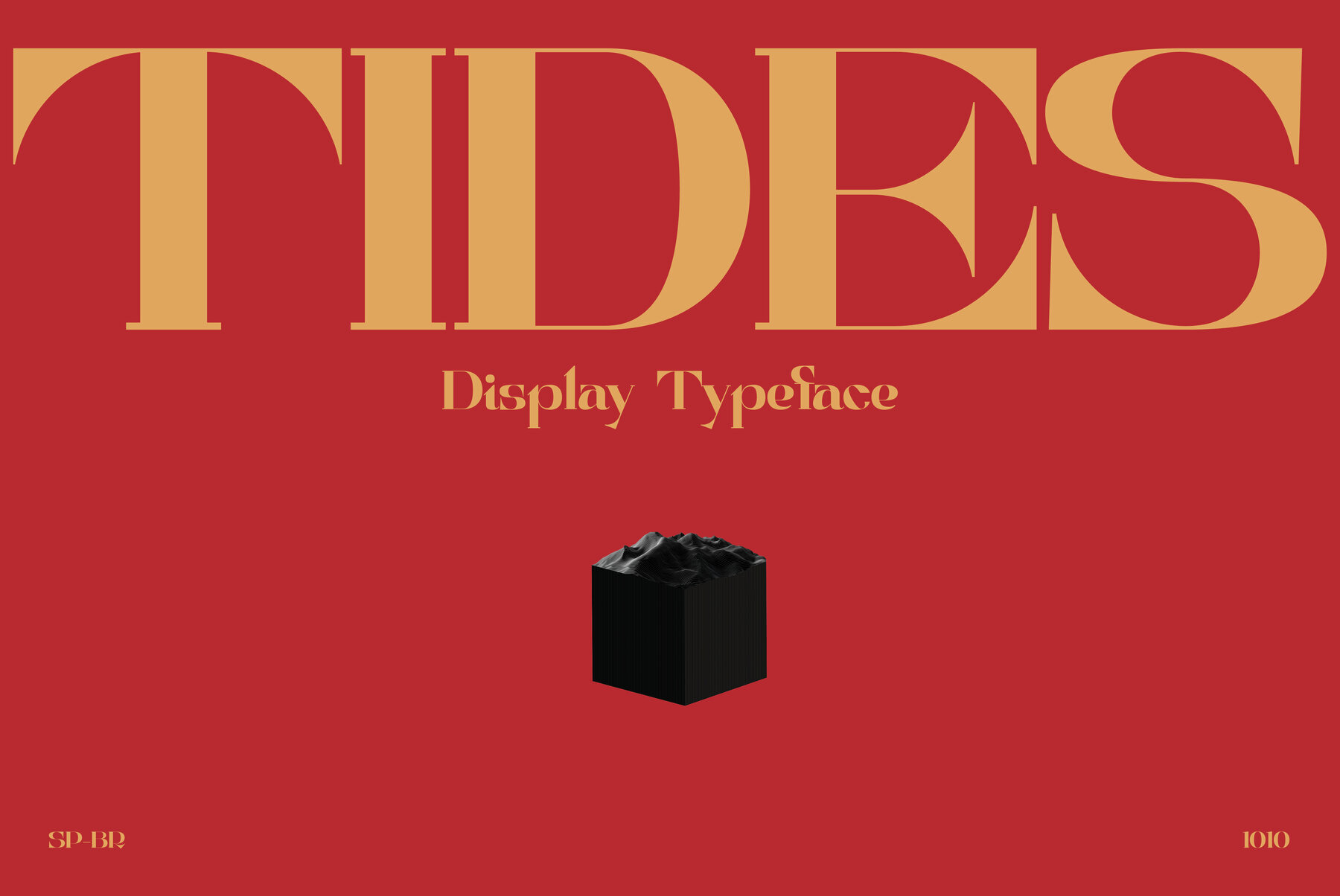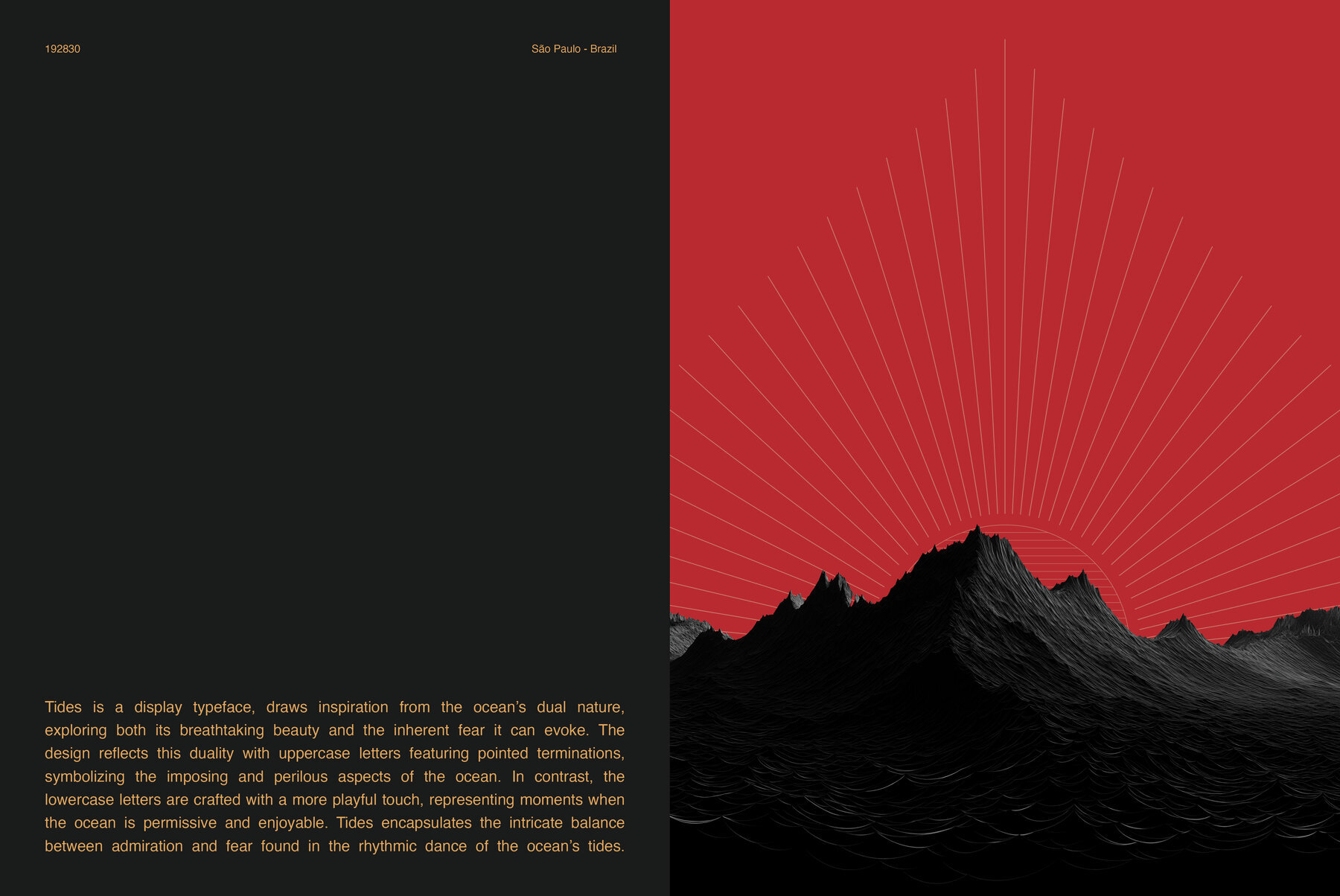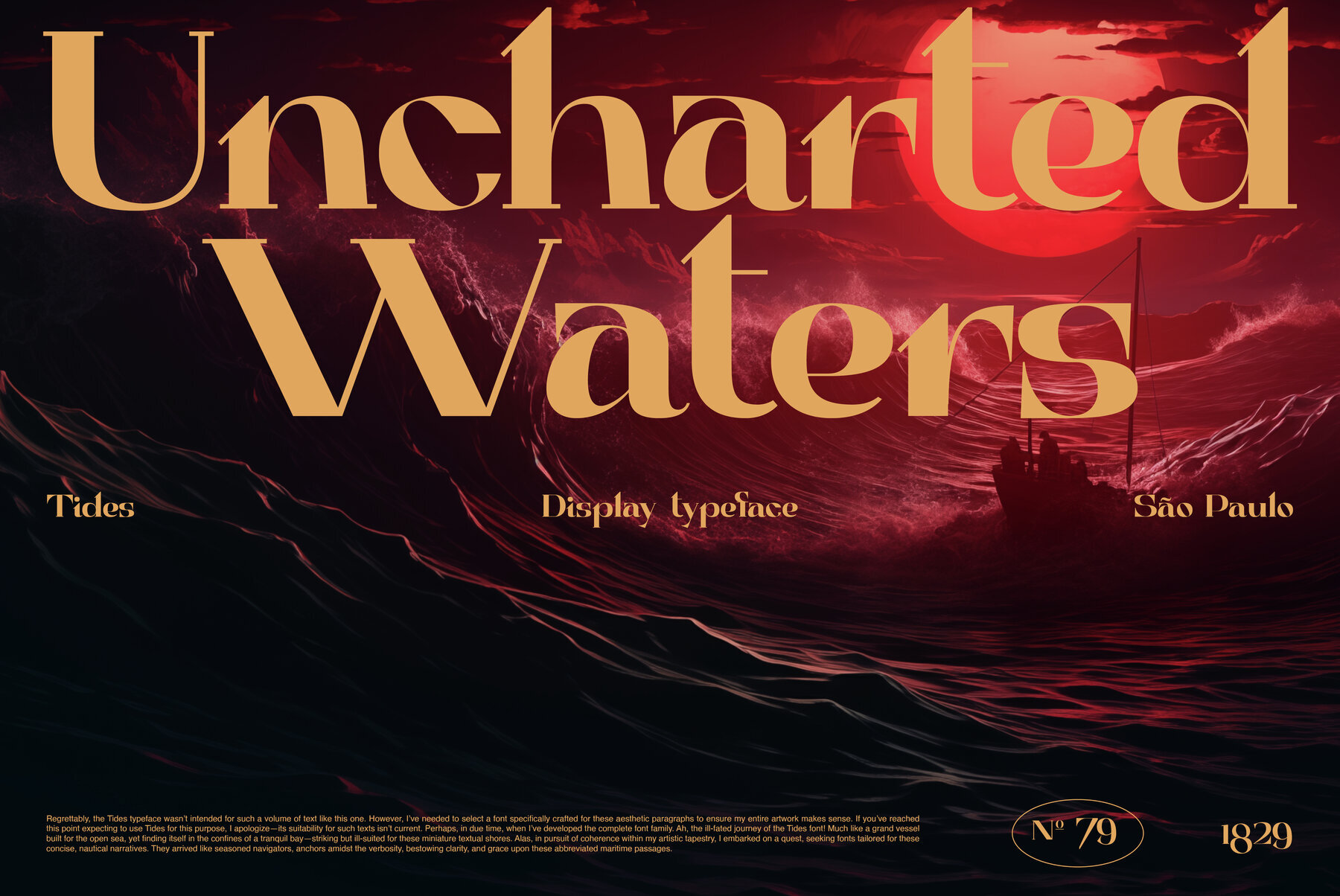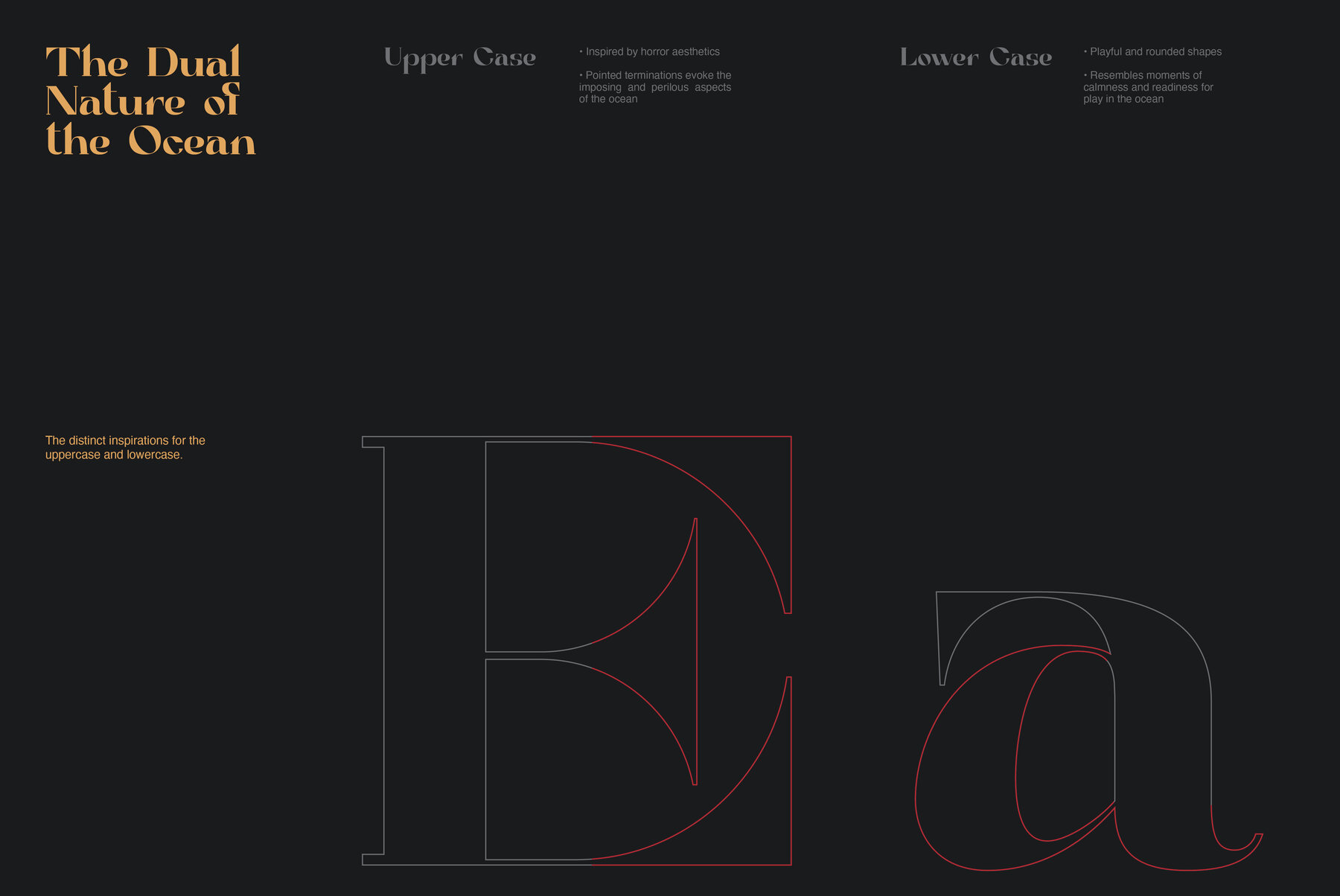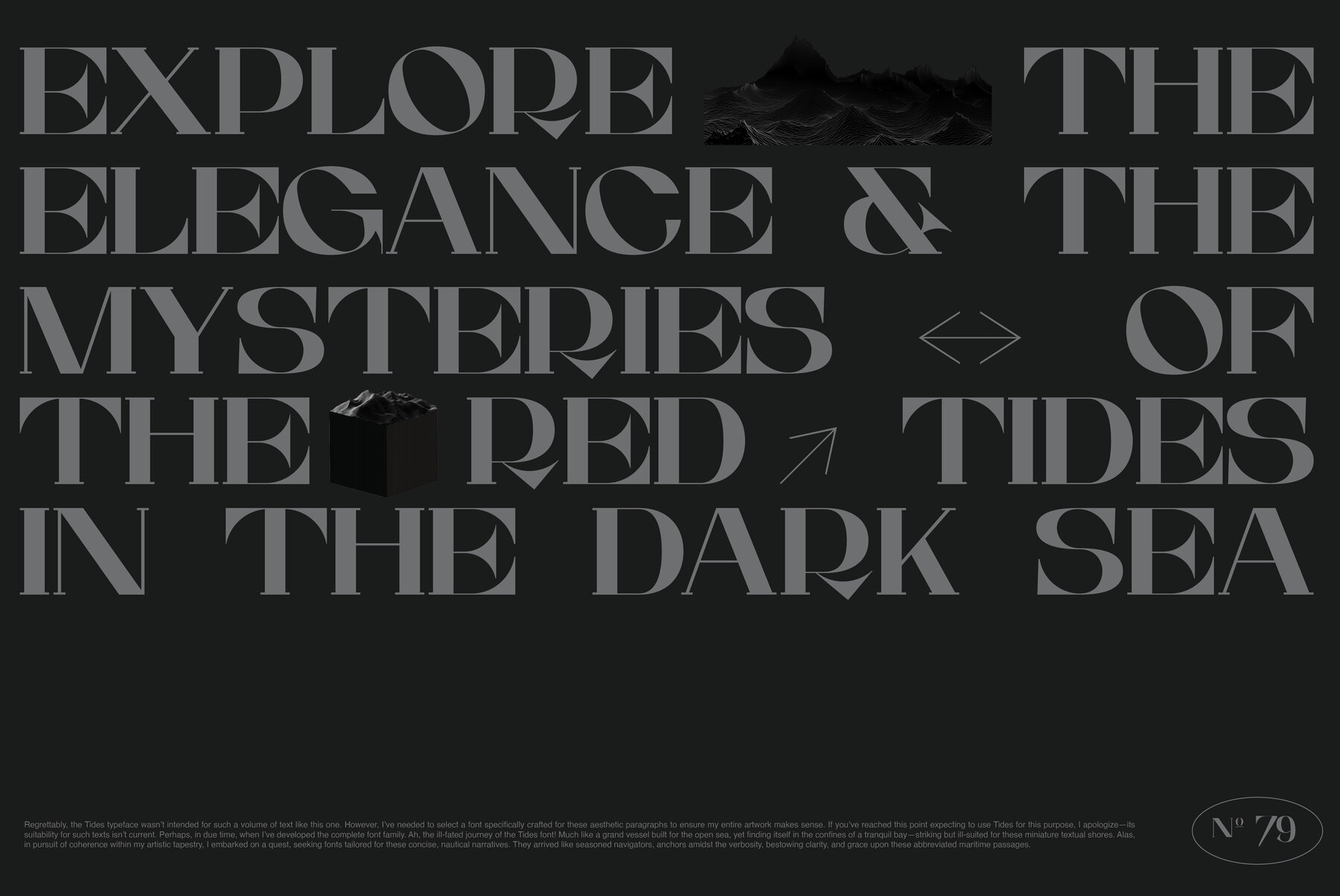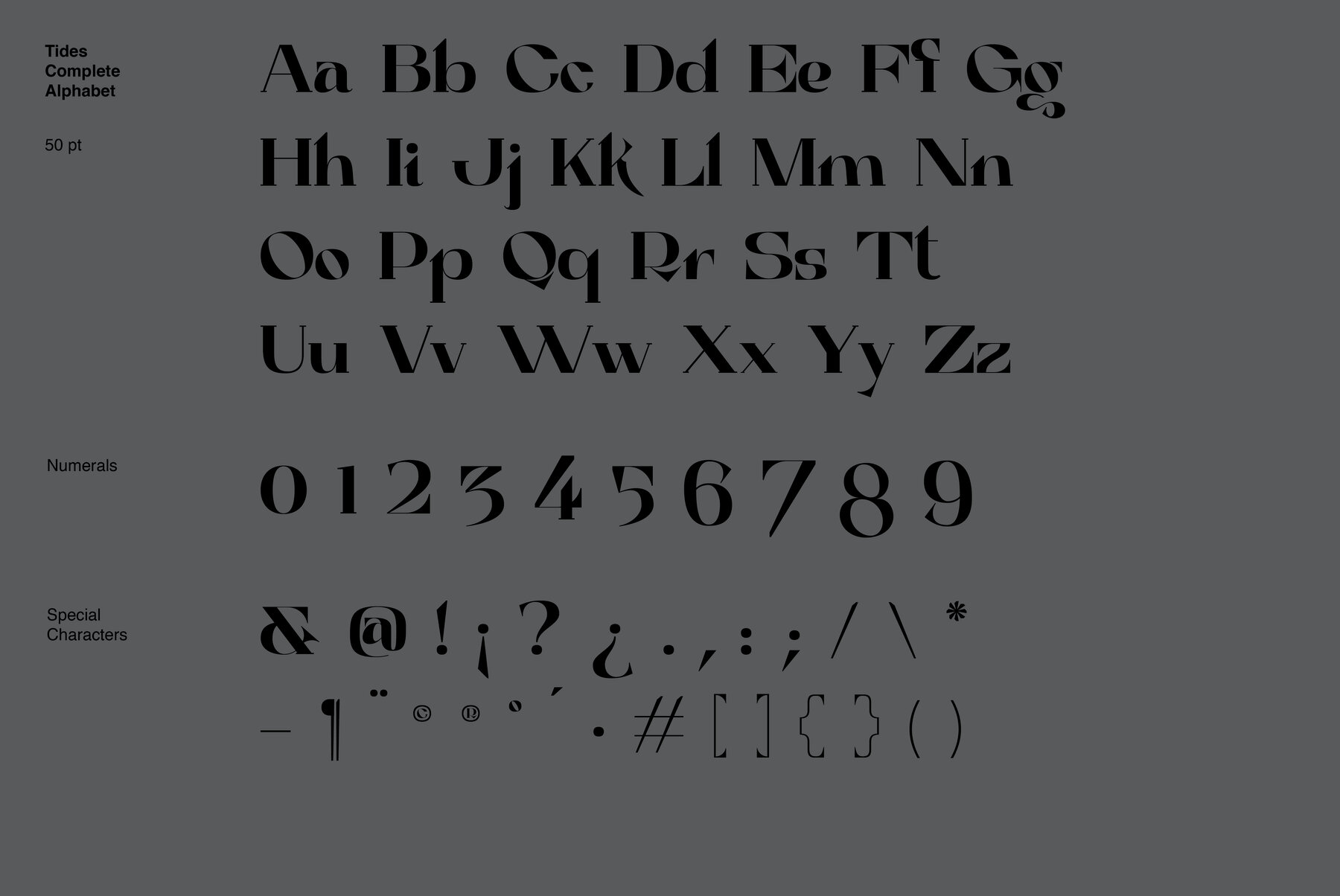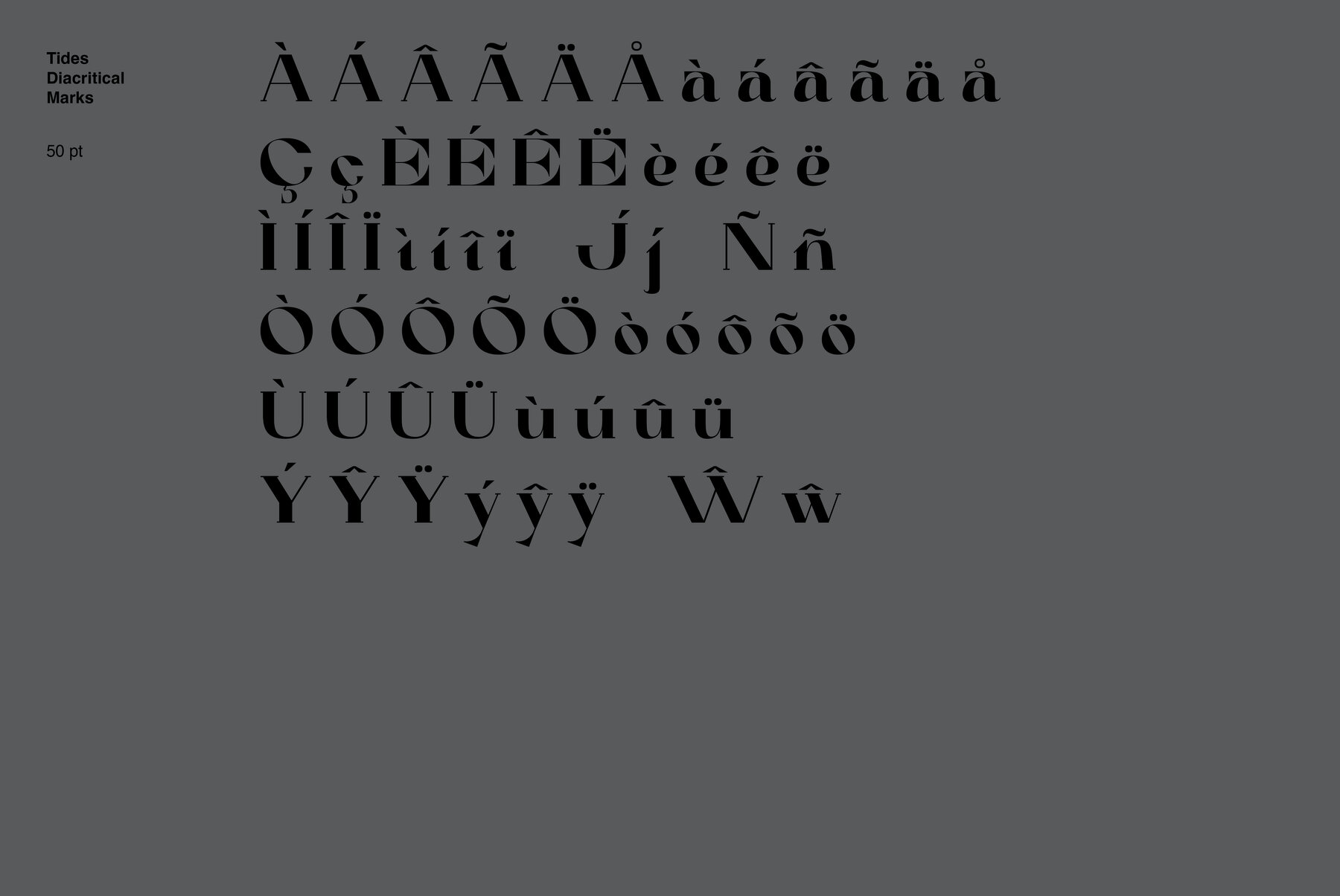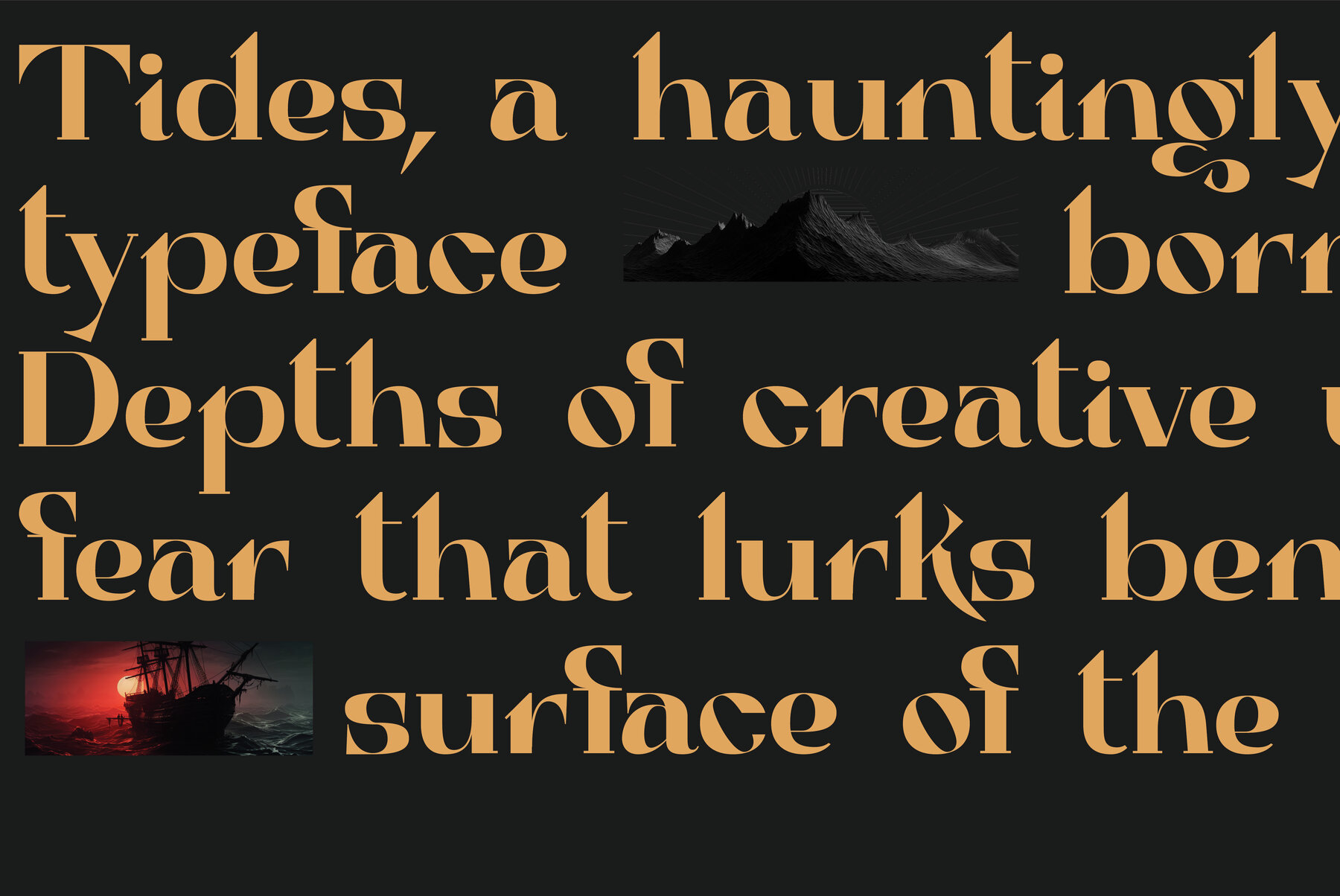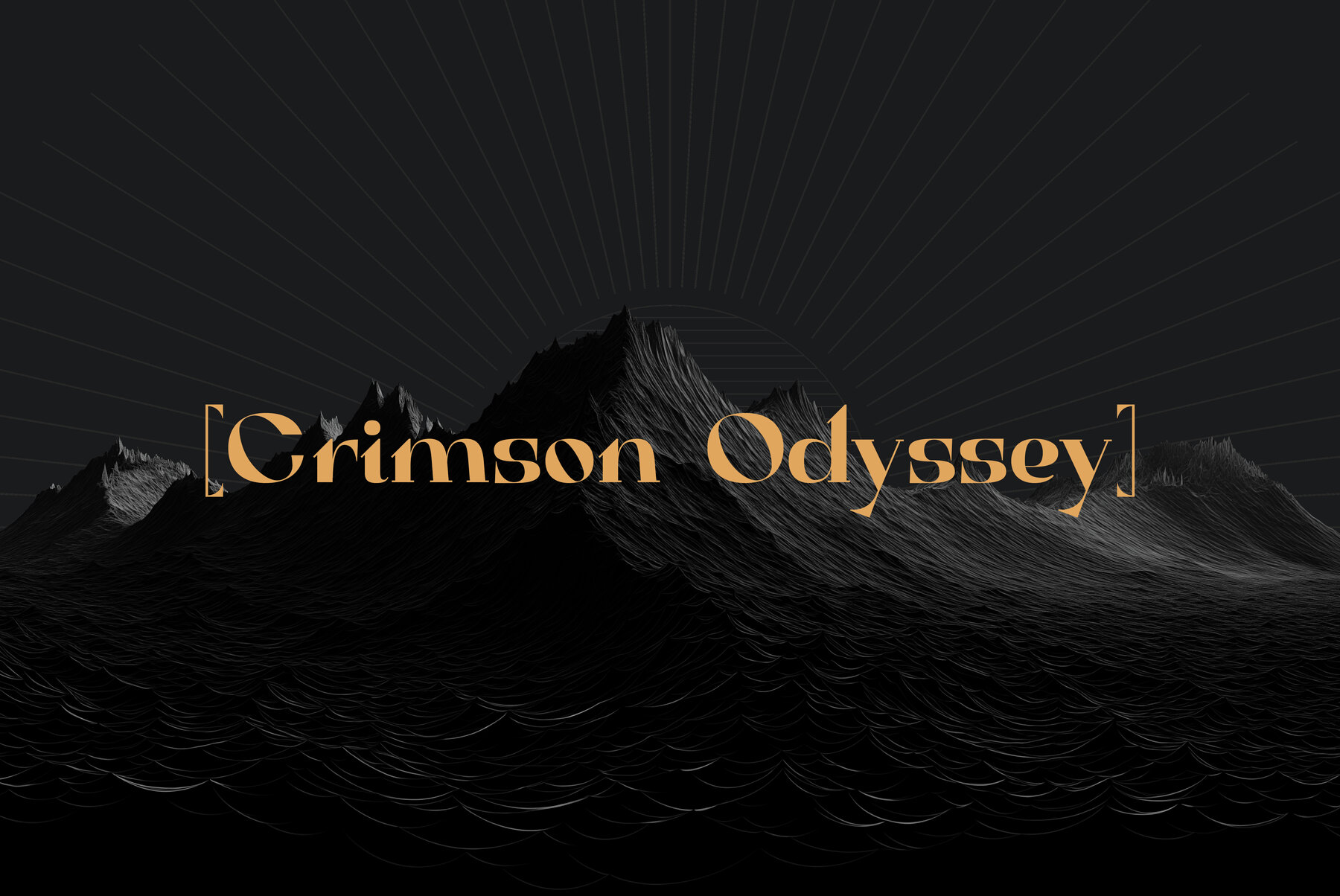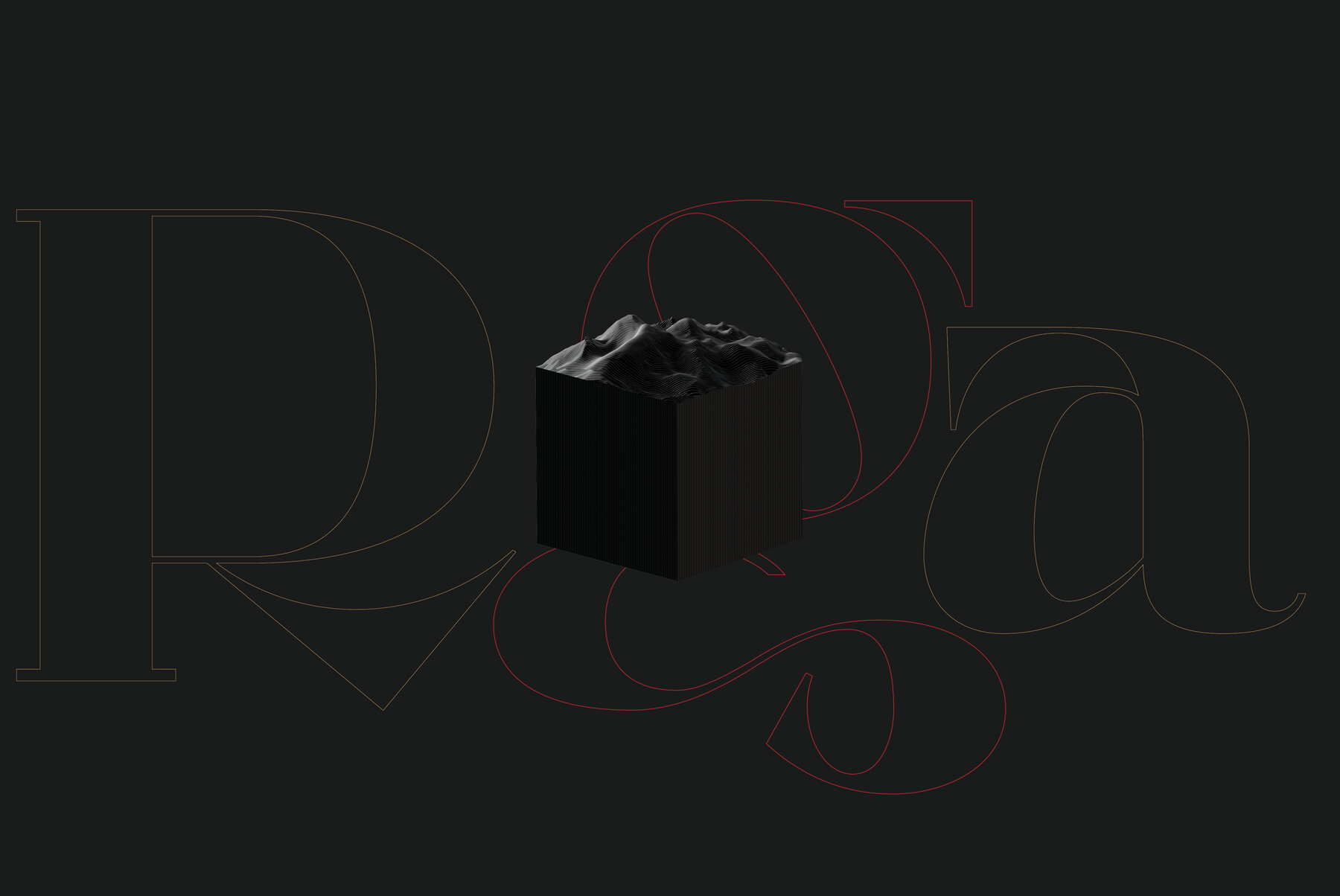
Tides Font
Tides Regular
Tides is a display typeface designed as a tribute to the ocean, one of the world's most captivating and awe-inspiring forces. The typeface embodies the ocean’s dual nature, capturing both its majestic beauty and the sense of danger it evokes. This contrast is expressed through the type’s structure: the uppercase letters feature sharp, pointed terminations, symbolizing the ocean’s power and unpredictability, while the lowercase letters take on a more playful and fluid form, reflecting the ocean’s gentler, more inviting side. Tides artfully balances these two elements, mirroring the constant ebb and flow of the tides, where admiration and fear coexist in harmony.